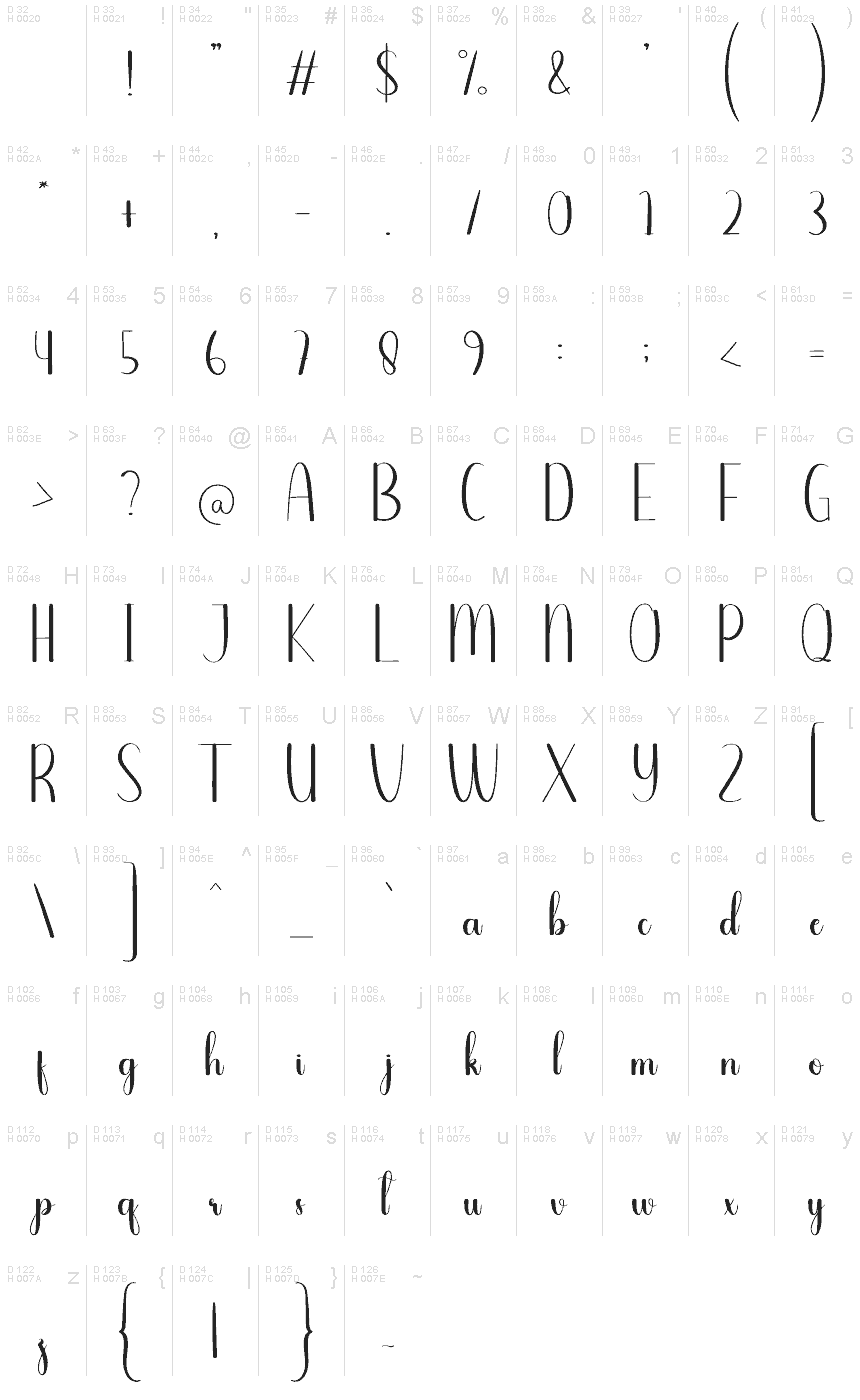
Plantation
Plantation font by Andi Moz is a free handwritten font with an elegant and modern style. Featuring condensed letters, it is decorated with stylish elements across its characters that give it a sophisticated look. The beauty of this font lies in the fluent curves and graceful flourishes that adorned even more its classic and restrained approach.
Use Plantation for wedding invitations, fashion advertising, jewelry branding projects, clothing tags, shop signs, makeup BYOD’s covers, and much more. The script can further be used in restaurant menus when food presentation requires such typography or else in souvenirs like cups or inscriptions on keychains.